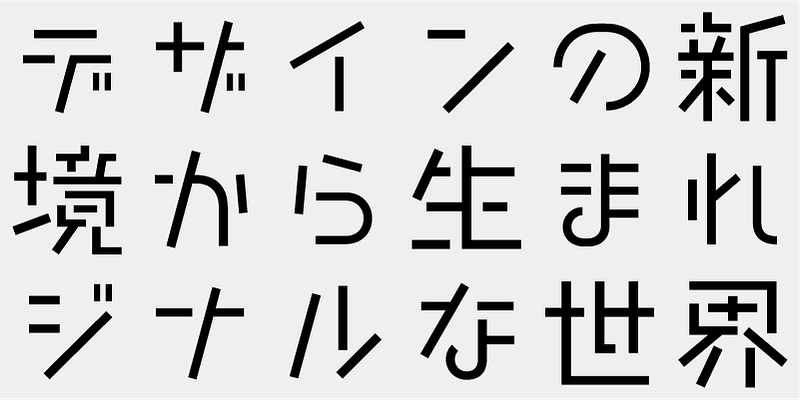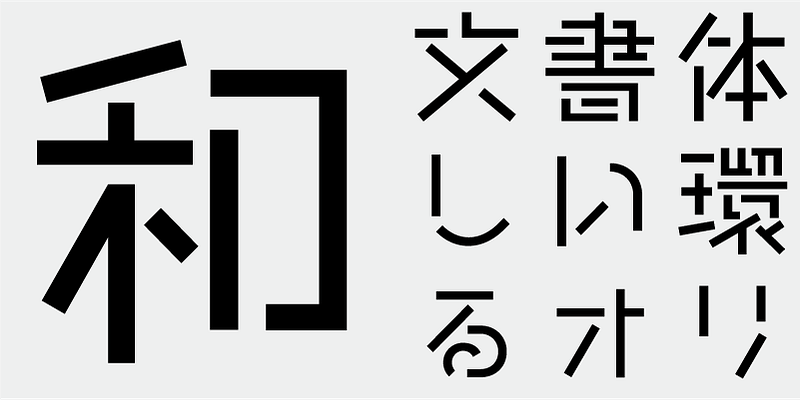
Since there were no stencil typefaces for Japanese text, we created a new stencil typeface including Japanese characters. For kanji with many strokes, we maintained the original character image while ensuring readability by omitting intersecting lines where appropriate.
This font includes the top 1,000 kanji characters selected from usage frequency lists compiled by newspaper companies, publishers, and the National Institute for Japanese Language and Linguistics, plus 206 additional characters such as kana, alphanumerics, and carefully selected symbols and punctuation marks.